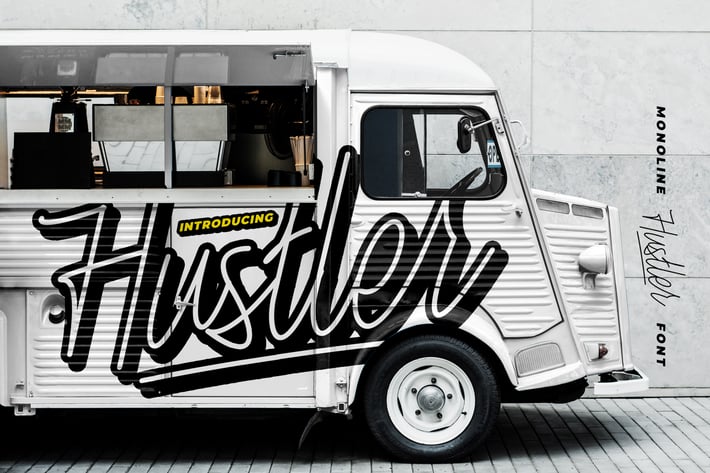
Hustler - Monoline Font
Hustler is perfect to use for Logotype, Letterhead, Poster, Apparel Design, Label and etc.
The alternative characters were divided into several features such as Stylistic Alternates and Ligature.